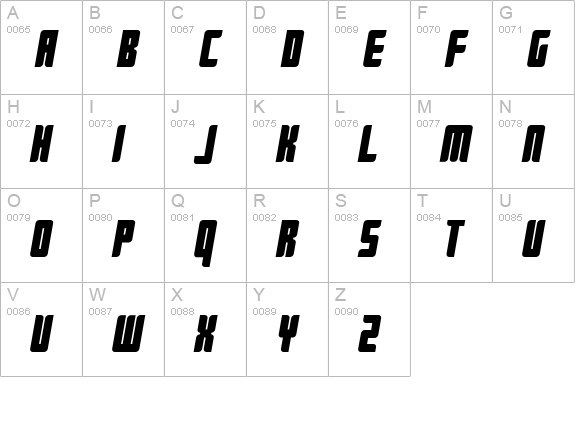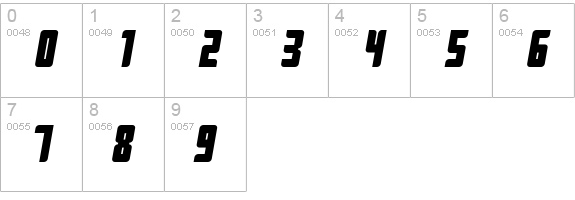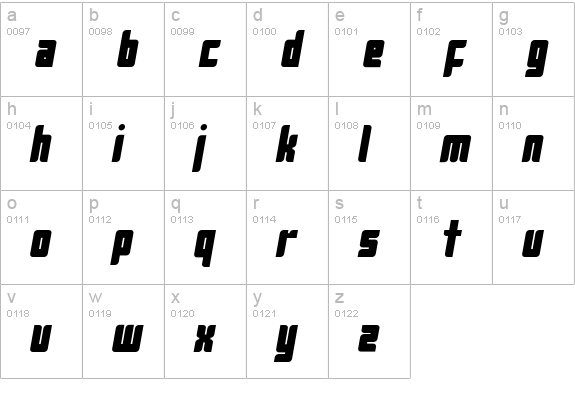
Push Black is a maximum-weight, dramatic variant in the Push typeface family \xE2\x80\x94 well suited to maximum-impact headlines, posters, and packaging.
Introducing Push Black font, a modern and sleek typeface that exudes sophistication and elegance. This font is perfect for creating eye-catching designs that demand attention. With its clean lines and sharp edges, Push Black font is ideal for a wide range of projects, from branding to editorial design. The best part? Push Black font is completely free to download at FontsMarket.com. This means you can add this stylish font to your collection without any cost, making it a valuable asset for your design projects. Don't miss out on the opportunity to elevate your designs with the timeless appeal of Push Black font - download it today and start creating stunning visuals effortlessly.